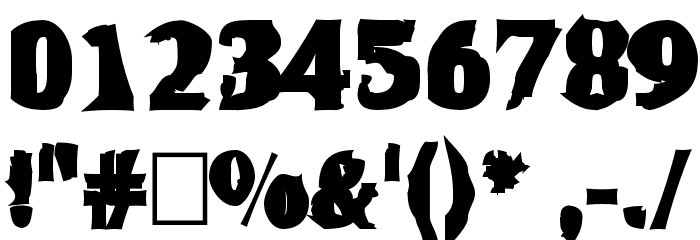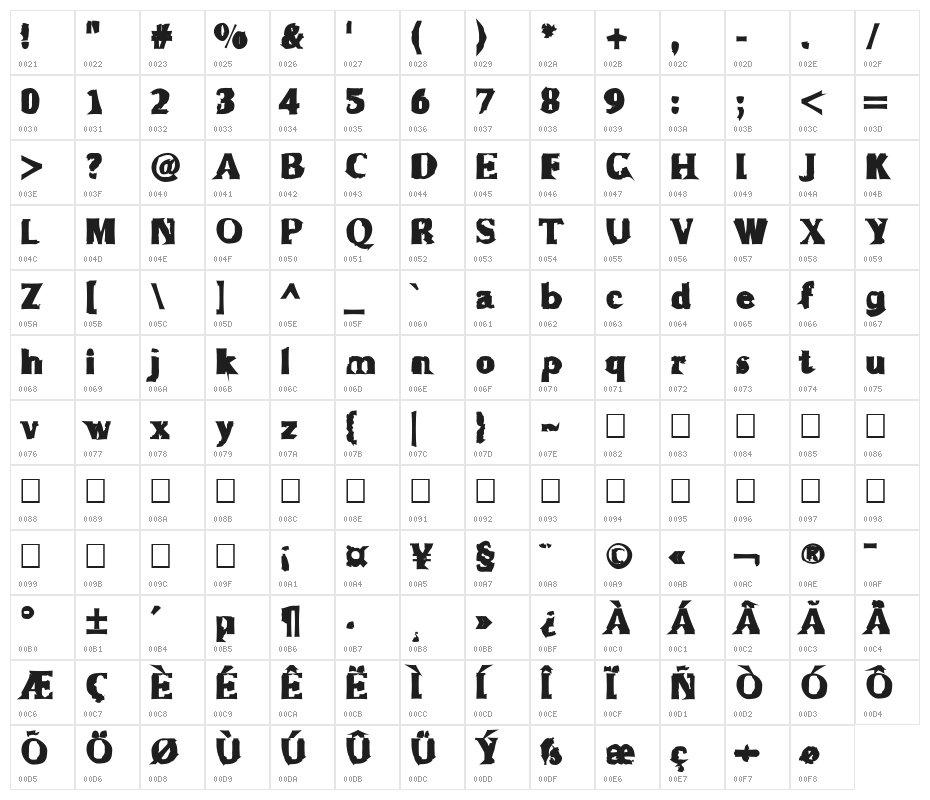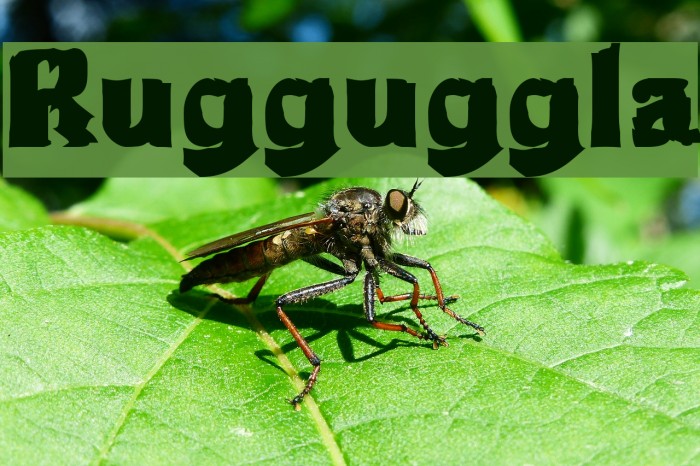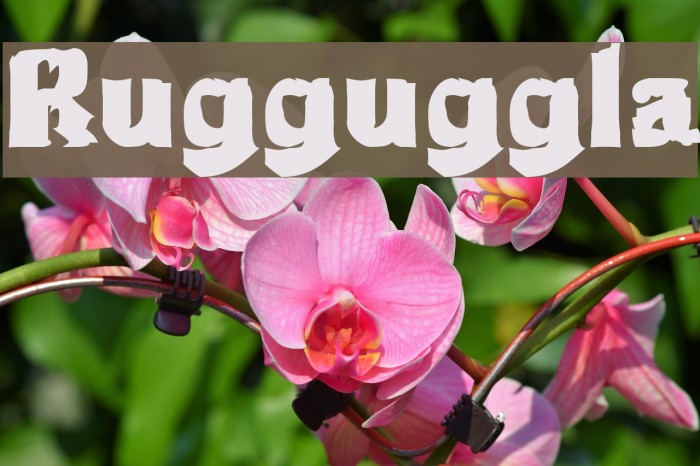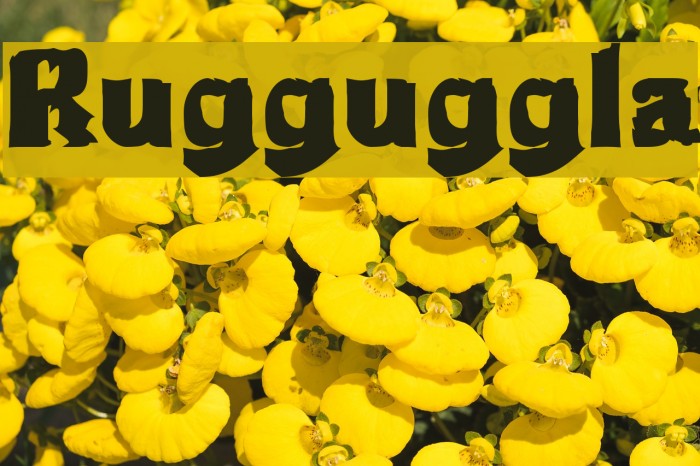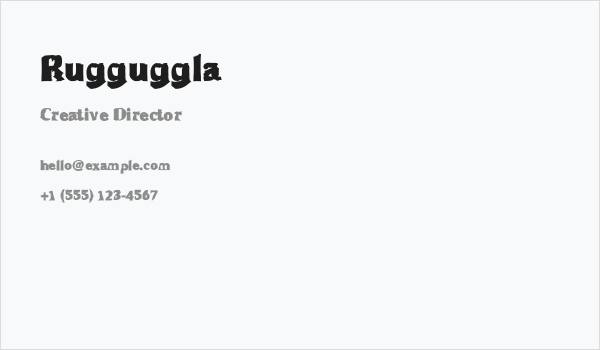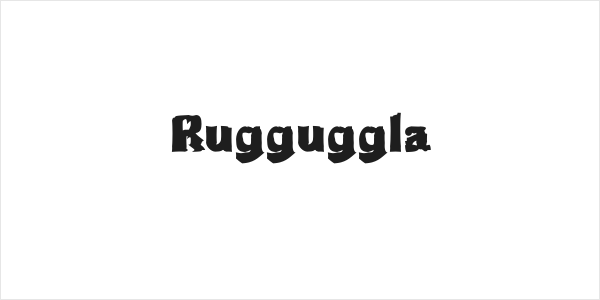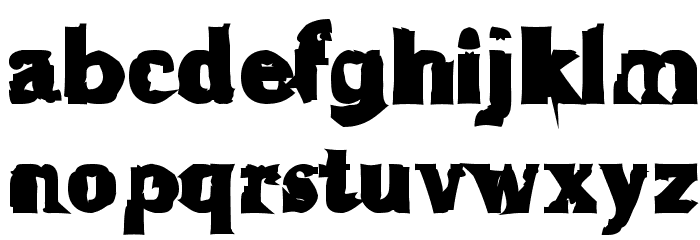
Rugguggla Font
Rugguggla Description
This font features a rugged, distressed style with irregular edges and a bold presence. The characters are heavily stylized, giving them a unique, almost chaotic appearance. The uppercase and lowercase letters maintain a consistent weight, while the numbers and special characters follow the same rugged theme. The font's design suggests a hand-crafted look, making it ideal for projects that require a raw, edgy aesthetic. Its boldness and distinct character shapes make it stand out, ensuring that any text set in this font will capture attention.
| Proposed Projects | Ideal for album covers, posters, branding for edgy products, or any design needing a raw, impactful look. |